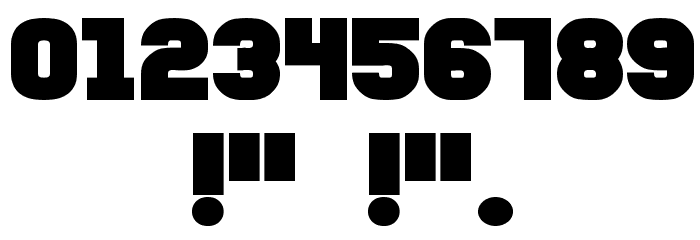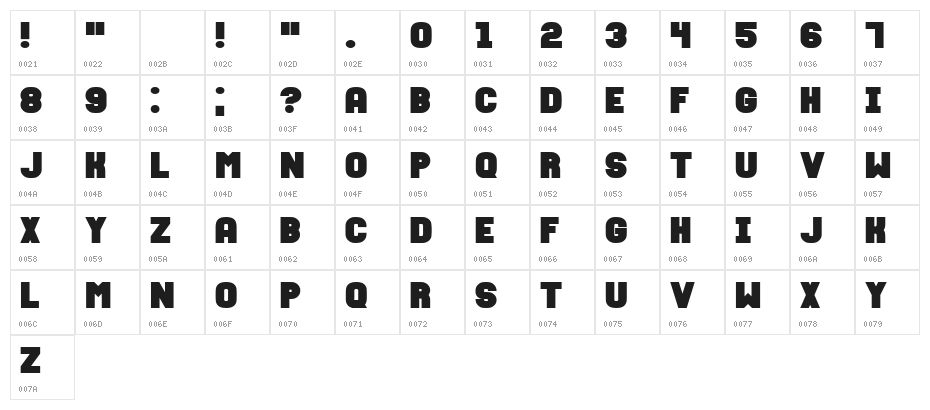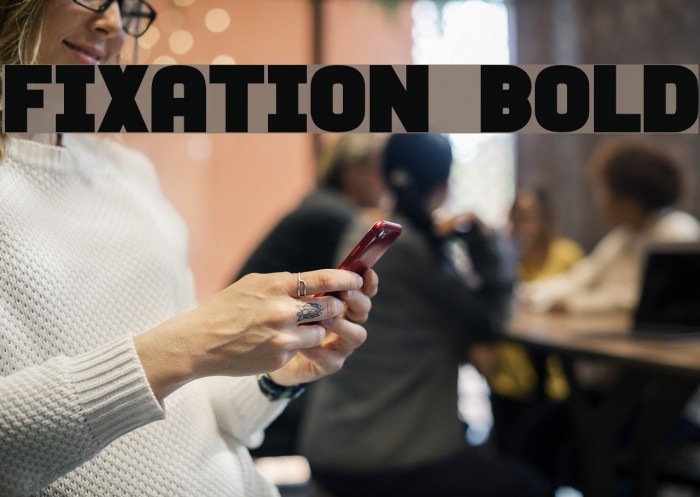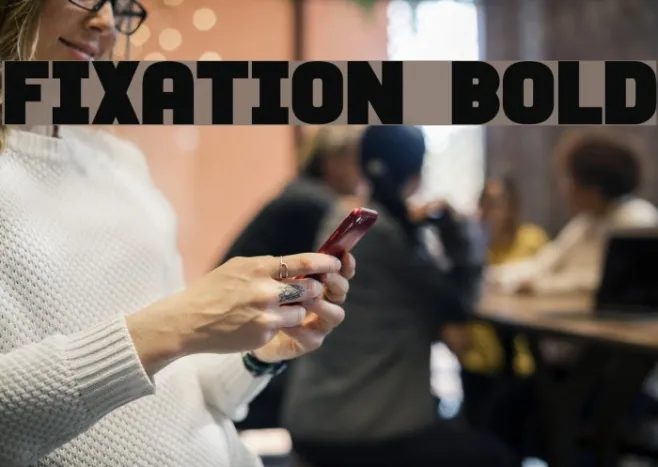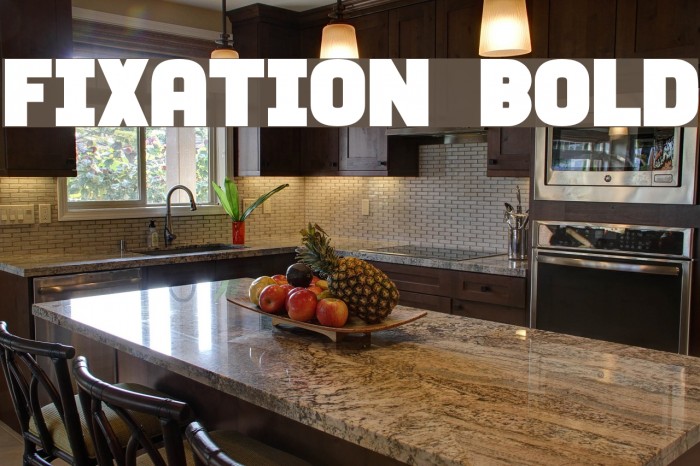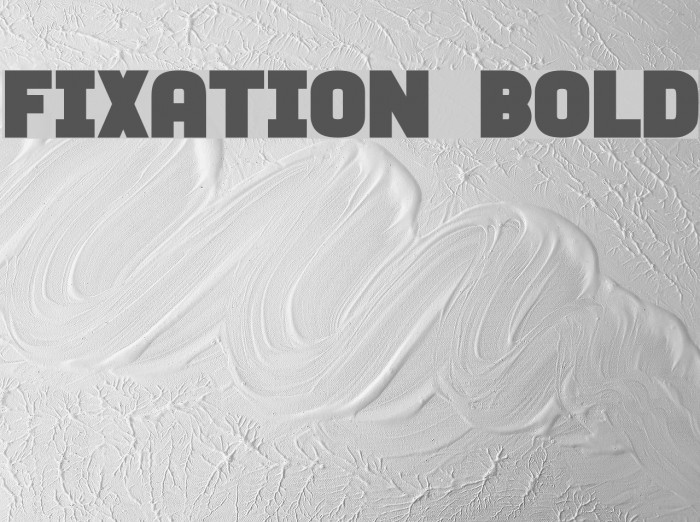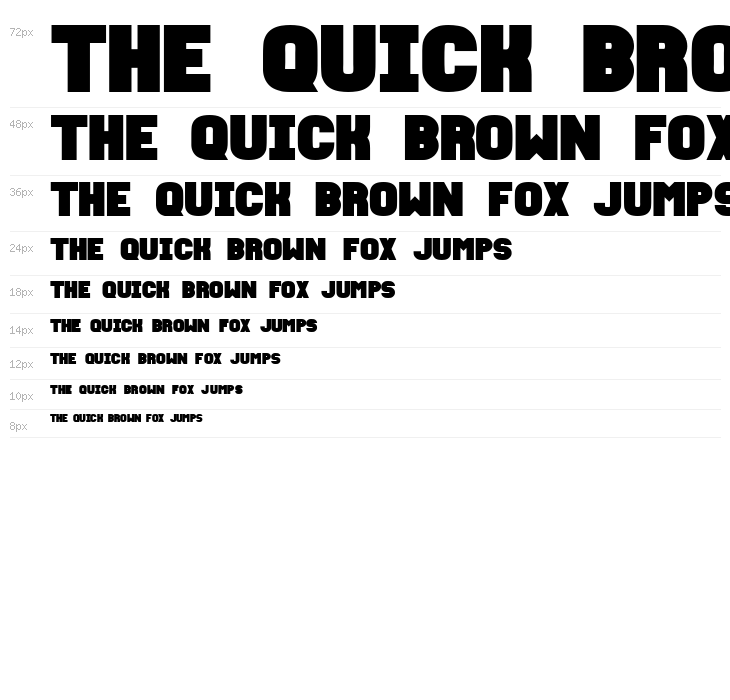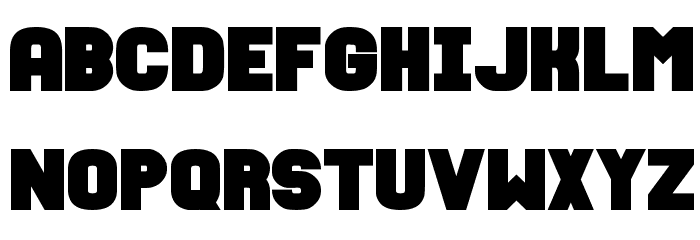
Fixation Bold Font
Fixation Bold Description
This font exhibits a bold and impactful style, characterized by thick, uniform strokes that convey strength and assertiveness. The characters are designed with a geometric precision, featuring rounded edges that soften the overall appearance while maintaining a strong presence. The uppercase letters are particularly striking, with a consistent height and width that create a cohesive look. The numerals and special characters follow the same bold design, ensuring uniformity across all elements. This font is ideal for making a statement, with its high visibility and modern aesthetic.
| Proposed Projects | Ideal for branding, headlines, posters, and any project requiring a bold statement. |